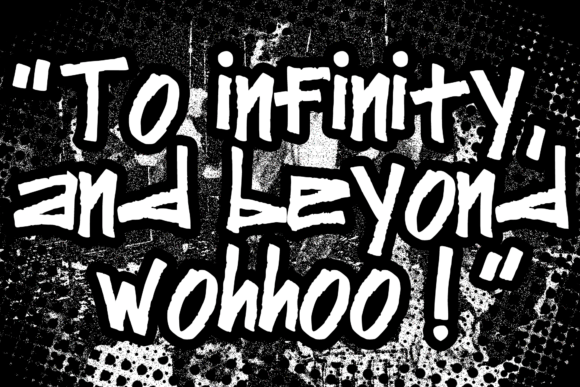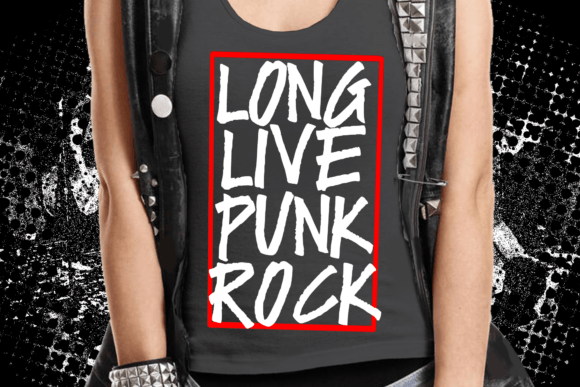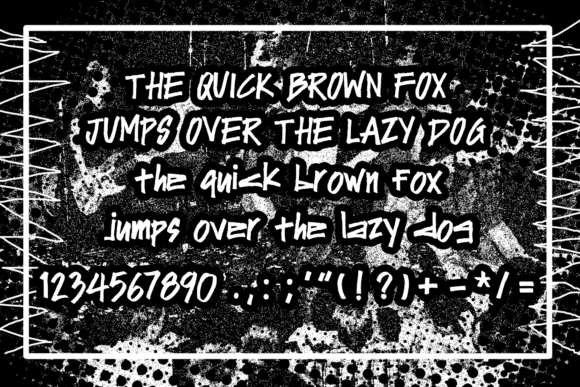
Introduction to Rebel Gang Riot Font Font
Fonts play a crucial role in design, and the Rebel Gang Riot Font font is a typeface that brings both character and versatility to any project. Whether you’re working on a branding project, a website, or a print design, the Rebel Gang Riot Font font offers a unique style that can elevate your work.
Rebel Gang Riot is a cool spontaneous handwritten font, inspired by quick graffiti tags writing, street art, and punk rock music.
It will elevate a wide range of design projects to the highest level You can use this font for many design ideas such as stickers, t-shirt designs, amazing logo designs, magazine or book covers, comics, cartoon drawings, and many more.
Key Features of Rebel Gang Riot Font Font
Why Choose Rebel Gang Riot Font Font?
The Rebel Gang Riot Font font is more than just a typeface – it’s a design tool that helps you communicate your message with style and clarity. Its unique character set and versatile design make it suitable for a wide range of applications, from elegant invitations to bold headlines.
With its carefully crafted letterforms and balanced proportions, the Rebel Gang Riot Font font ensures readability and visual appeal across all mediums.
What makes Rebel Gang Riot Font font special?
The Rebel Gang Riot Font font stands out with its unique design, exceptional readability, and versatility across various design applications.